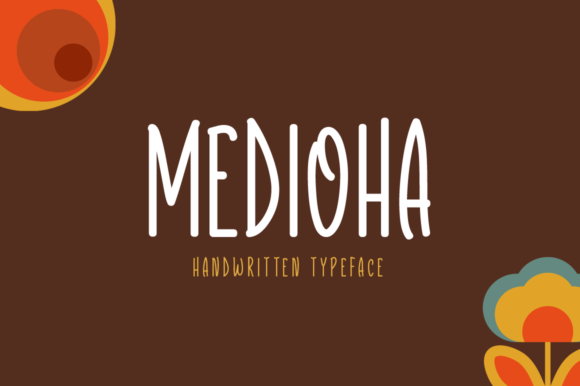
Journey into the realm of captivating typography with Medioha Font, a masterpiece crafted by Shattered Notion. This modern handwritten display font exudes a blend of elegance and creativity, making it the perfect choice for your next project.
Unleash your creative spirit and transform your designs into works of art. Medioha Font's flowing characters and enchanting style will add a touch of sophistication and charm to any project. From eye-catching logos and headers to stunning posters and flyers, Medioha Font is the key to unlocking your design potential.
Step into a world of endless possibilities and let Medioha Font take you on a visual adventure. Its versatility extends to a wide range of applications, including stationery, t-shirt designs, paper crafts, print creations, website elements, photo frames, music covers, and image sliders.
With Medioha Font, you'll discover a font that speaks to your soul. Its enchanting characters dance across the page, leaving a trail of beauty and inspiration. Let your imagination soar and experience the joy of creating designs that resonate with your audience.
Medioha Font is more than just a font; it's an expression of your unique style. Its captivating curves and graceful lines will add a touch of elegance to your designs, making them stand out from the crowd.
Don't settle for ordinary fonts that blend into the background. Choose Medioha Font and let your creations shine. Embark on a typographic journey that will leave you breathless.